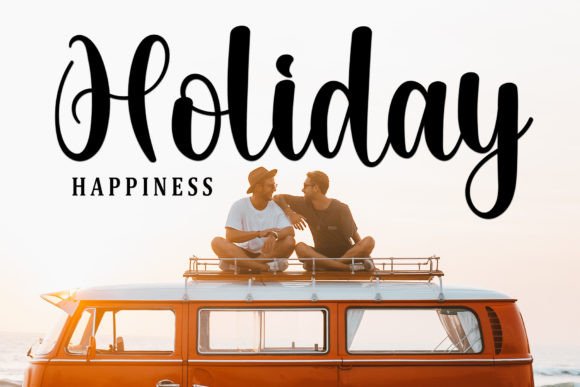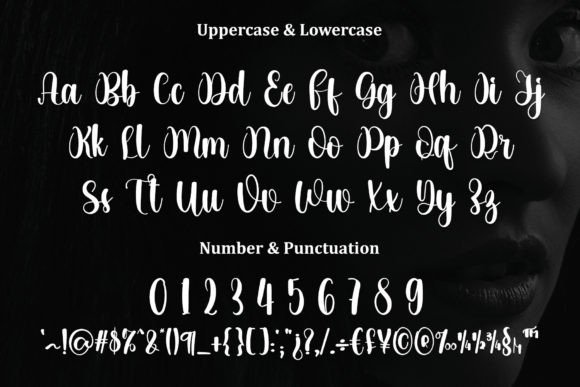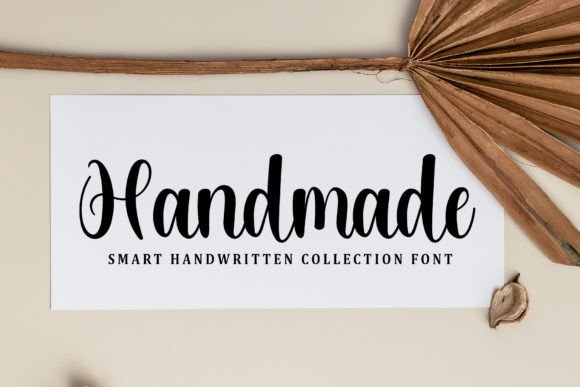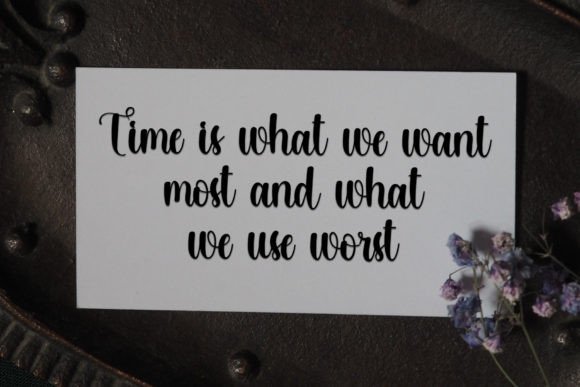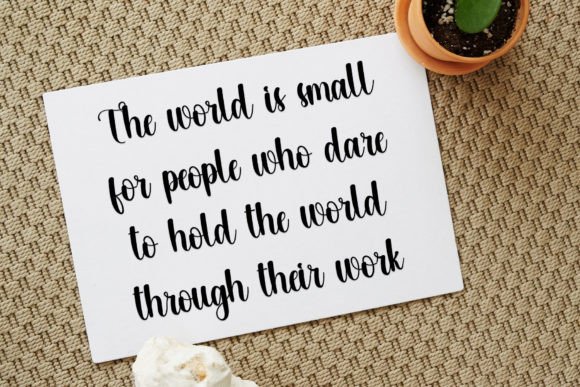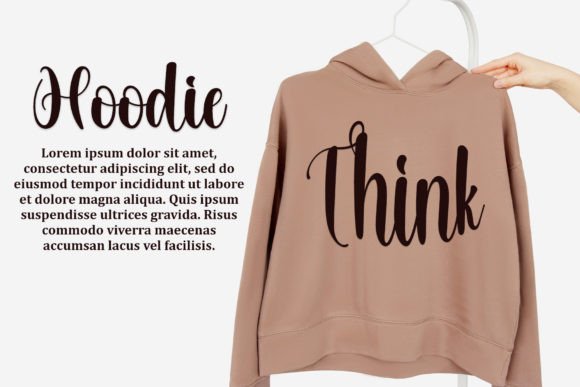
The Bulky Font: A Timeless, Handwritten Treasure for Your Designs
Described as a neat and beautiful handwritten font with an elegant touch, Bulky is perfect for adding a touch of sophistication to your favorite projects. Its incredibly distinct and timeless style makes it an excellent choice for designers, crafters, and creative hobbyists looking to create spectacular designs.
What I Love About Bulky ✨
- ✅ Elegant and refined: Bulky has a certain sophistication to it that makes it perfect for high-end branding projects or elegant crafts.
- ✅ Highly legible: Despite its elegant nature, Bulky is incredibly easy to read, making it suitable for both headings and body text.
- ✅ Versatile: From wedding invitations to business cards, Bulky can adapt to any design style or theme.
- ✅ Unique character: Bulky has a distinct personality that sets it apart from other fonts, ensuring your designs will stand out.
While Bulky is an amazing font, it’s not without its quirks. For instance:
- ⚠️ Limited availability of certain characters: Some users might find that certain special characters or glyphs are not available in Bulky.
- ⚠️ Not ideal for body text in small sizes: While legible, Bulky’s elegance shines best in larger sizes; it might not be the best choice for small body text.
One of the standout features of Bulky is its support for OpenType features. This means you can access a range of glyphs and stylistic alternates to add variety and personality to your text. For example, you can use:
- Ligatures to create beautiful connections between letters.
- Stylistic sets to access alternate characters and create a unique look.
- Swashes to add elegant flourishes to your text.
The Story Behind Bulky: Designer Inspiration
The story behind Bulky’s creation is one of passion and dedication. Designed by a team of typography enthusiasts, Bulky was crafted to fill the gap between elegant and legible fonts. Inspired by classic calligraphy and modern digital design, Bulky’s creators aimed to produce a font that would be both timeless and versatile.
Q: What type of projects is Bulky best suited for?
A: Bulky is incredibly versatile and can be used for a wide range of projects, including branding, packaging, wedding invitations, business cards, and more.
Q: Does Bulky support OpenType features?
A: Yes, Bulky supports OpenType features, including ligatures, stylistic sets, and swashes, allowing you to customize your text and add personality to your designs.
Q: Is Bulky suitable for body text?
A: While Bulky is highly legible, it’s best suited for headings and titles. For body text, consider using a font specifically designed for readability in smaller sizes.